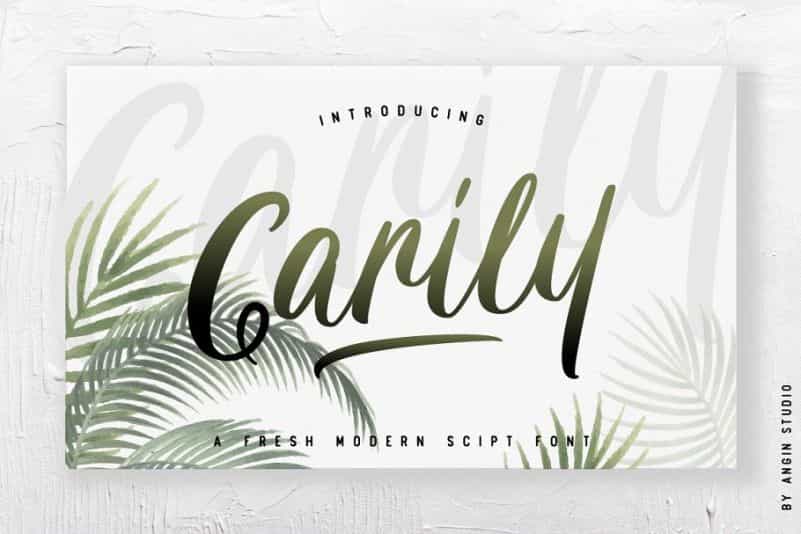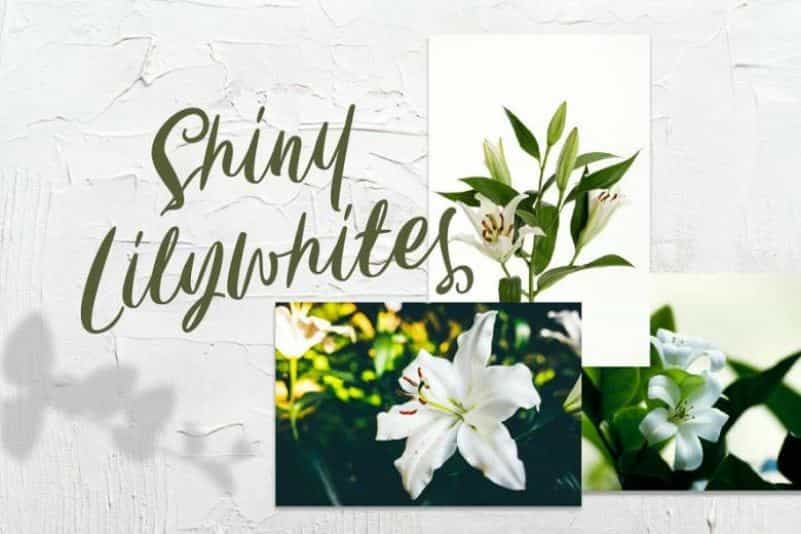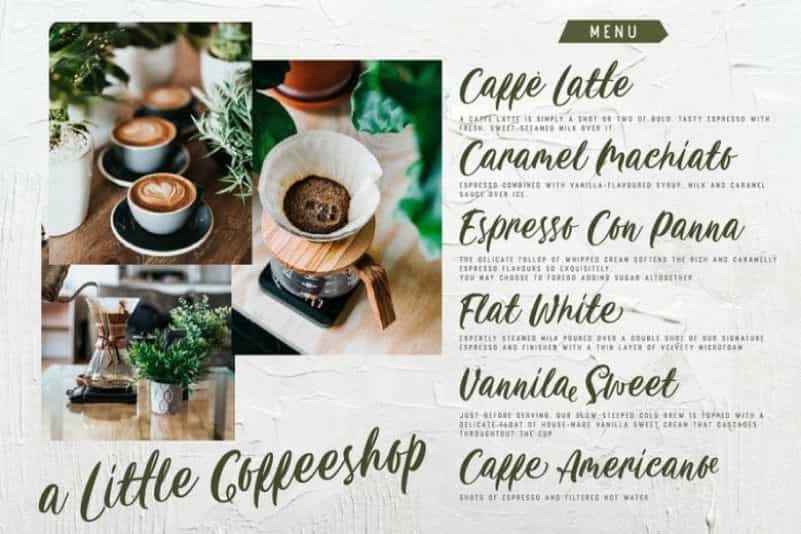
Discover Carily Script Font, part of the Brush Calligraphy collection—a versatile and unique font perfect for adding a personal touch to your projects. Download it for free and enjoy crafting designs with style, from invitations to social media posts. This font is available exclusively for personal use, giving you the freedom to create without limits. Unlock your creativity with Carily Script Font today!
Introducing Carily Script Font. A new fresh handmade calligraphy font. Get a modern script style with Carily Font! This amazing font was designed and shared by Angin Studio. Carily is a modern brush font created based on our hand lettering that inspired by modern brush calligraphy, creating luxurious brush font will be spread a fresh feel to your design, every letter created carefully and naturally.